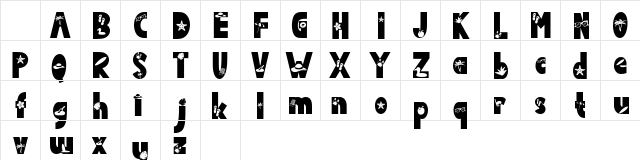
Dainty Summer is a composed and adaptable typeface that performs quietly and consistently across a wide range of design contexts.
Pro Tip: Use Dainty Summer in both headline and body roles to test its range before committing to a single application.